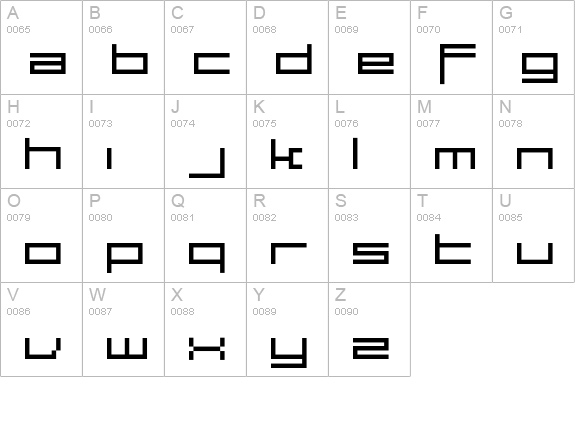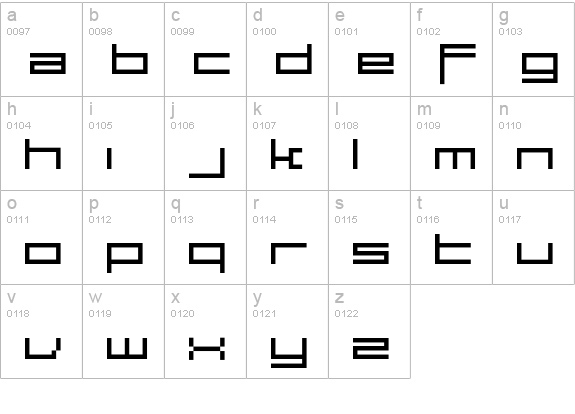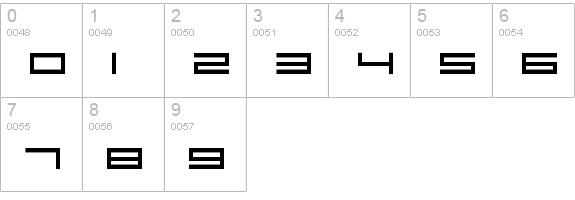
Large9-Normal is the standard, neutral variant in the Large9 typeface family \xE2\x80\x94 well suited to general body text, paragraphs, and standard typographic work.
Introducing Large9-Normal font, a striking and versatile typeface that is sure to make a bold statement in any design project. With its clean lines and modern aesthetic, this font is perfect for headlines, titles, logos, and more. The Large9-Normal font strikes the perfect balance between elegance and readability, making it suitable for both print and digital applications. What sets Large9-Normal font apart is its remarkable ability to capture attention while maintaining legibility. Its large letterforms demand attention, making it ideal for creating eye-catching headlines and impactful designs. Whether you're designing a poster, a website, or a branding project, this font is sure to leave a lasting impression. But what makes Large9-Normal font even more appealing is that it is freely available to download at FontsMarket.com. Yes, you read that right - this high-quality font can be yours at absolutely no cost. FontsMarket.com is a trusted source for all your font needs, offering a wide range of fonts for both personal and commercial use. Downloading the Large9-Normal font is quick and easy, allowing you to start using it in your projects right away. So why wait? Add a touch of sophistication and modernity to your designs with the Large9-Normal font. Download it for free at FontsMarket.com and elevate your typography game to new heights. With its striking appearance and easy availability, this font is a must-have for any designer or creative professional. Don't miss out on this incredible opportunity to enhance your designs with the Large9-Normal font.